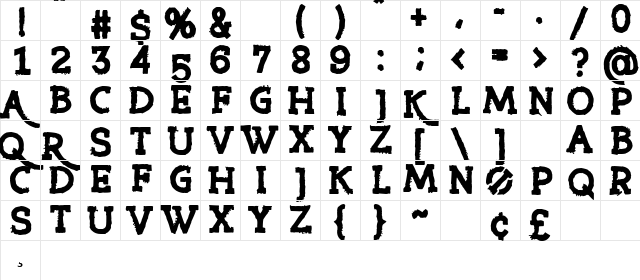
Riot Ton Regular
| Designer | Leonard Posavec |
Design Context for Riot Ton Typeface
Riot Ton takes a measured approach to typography — its balanced proportions and neutral character make it a reliable workhorse for both digital and print work.
Pro Tip: Use Riot Ton in both headline and body roles to test its range before committing to a single application.